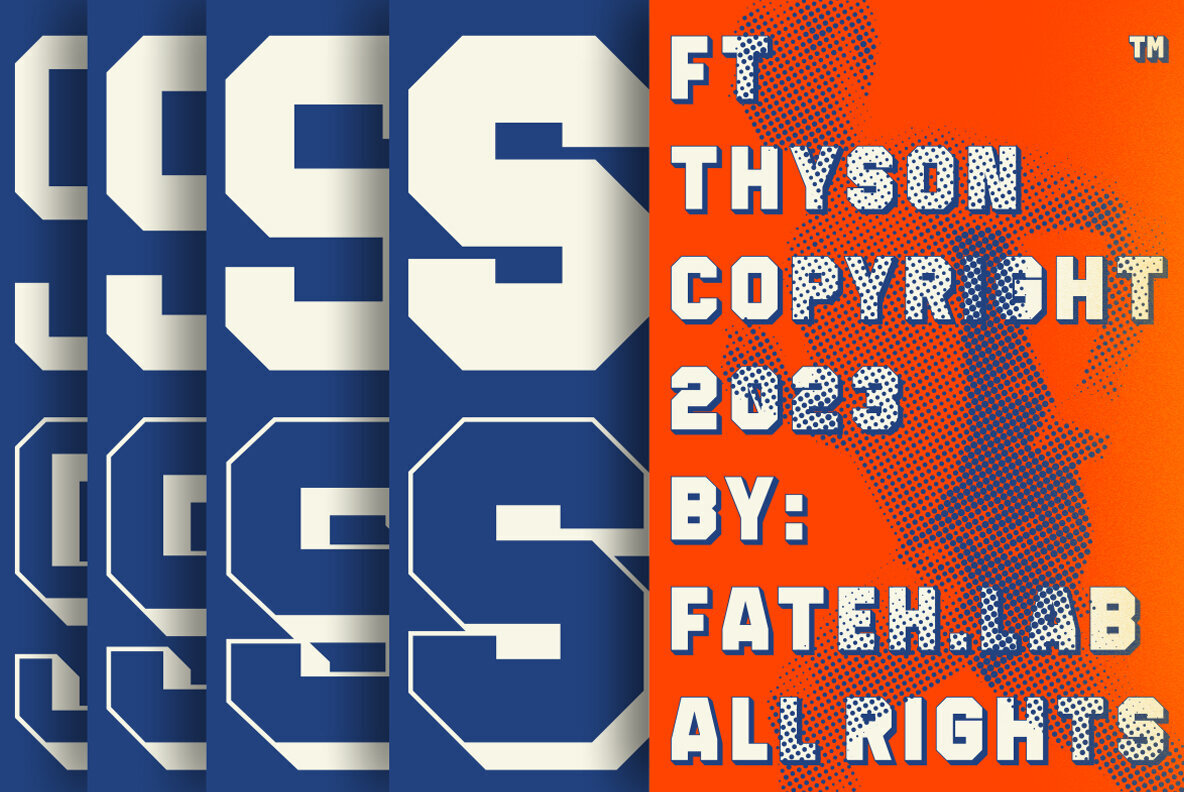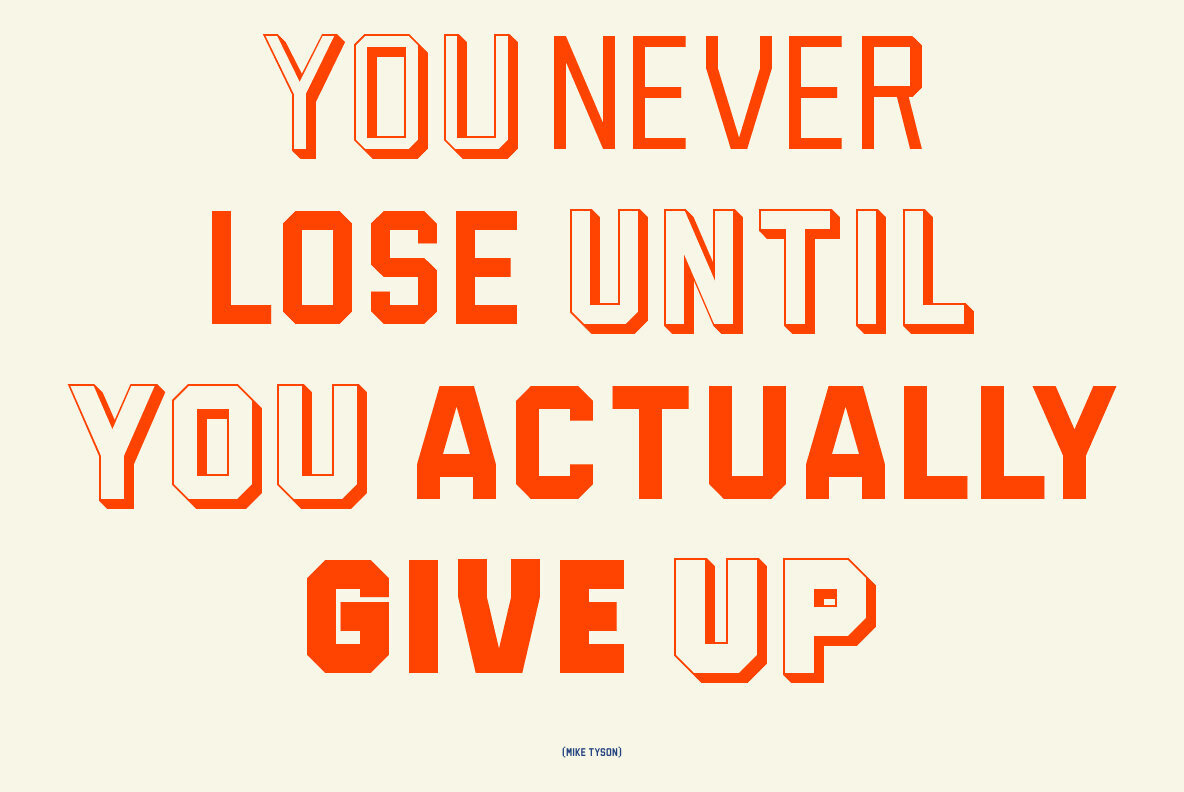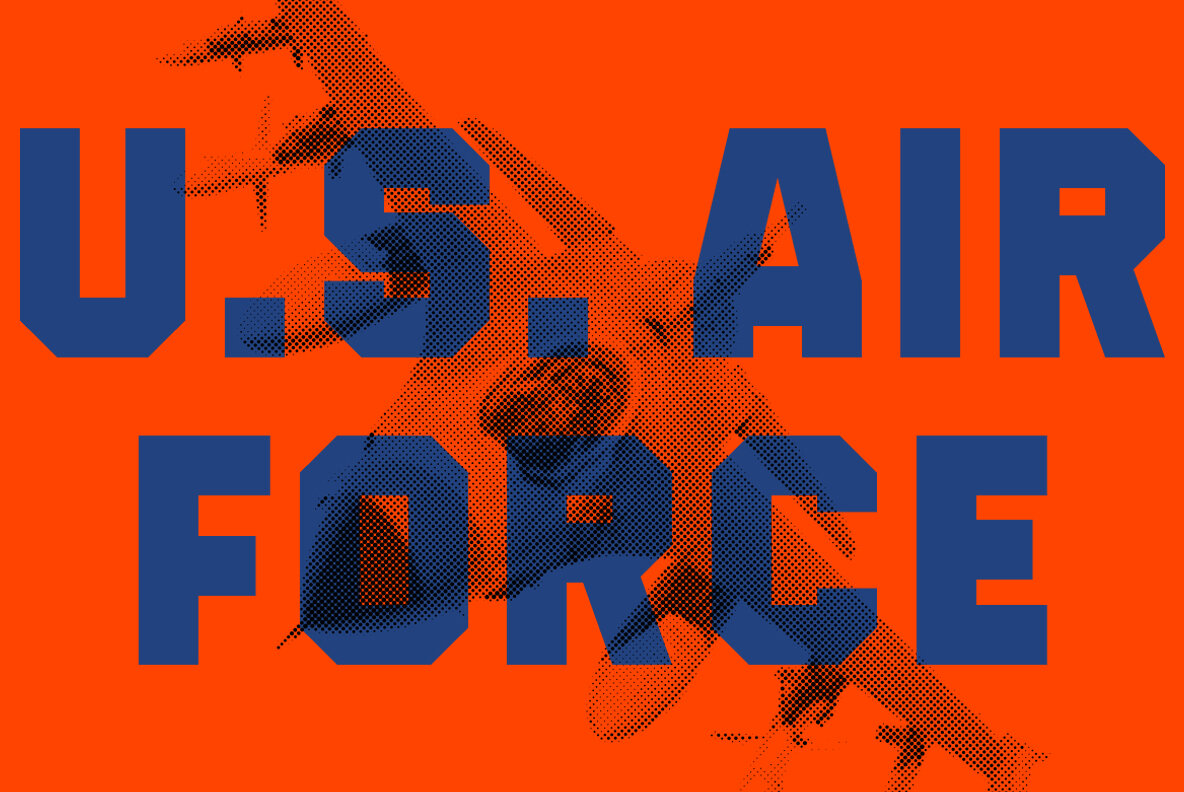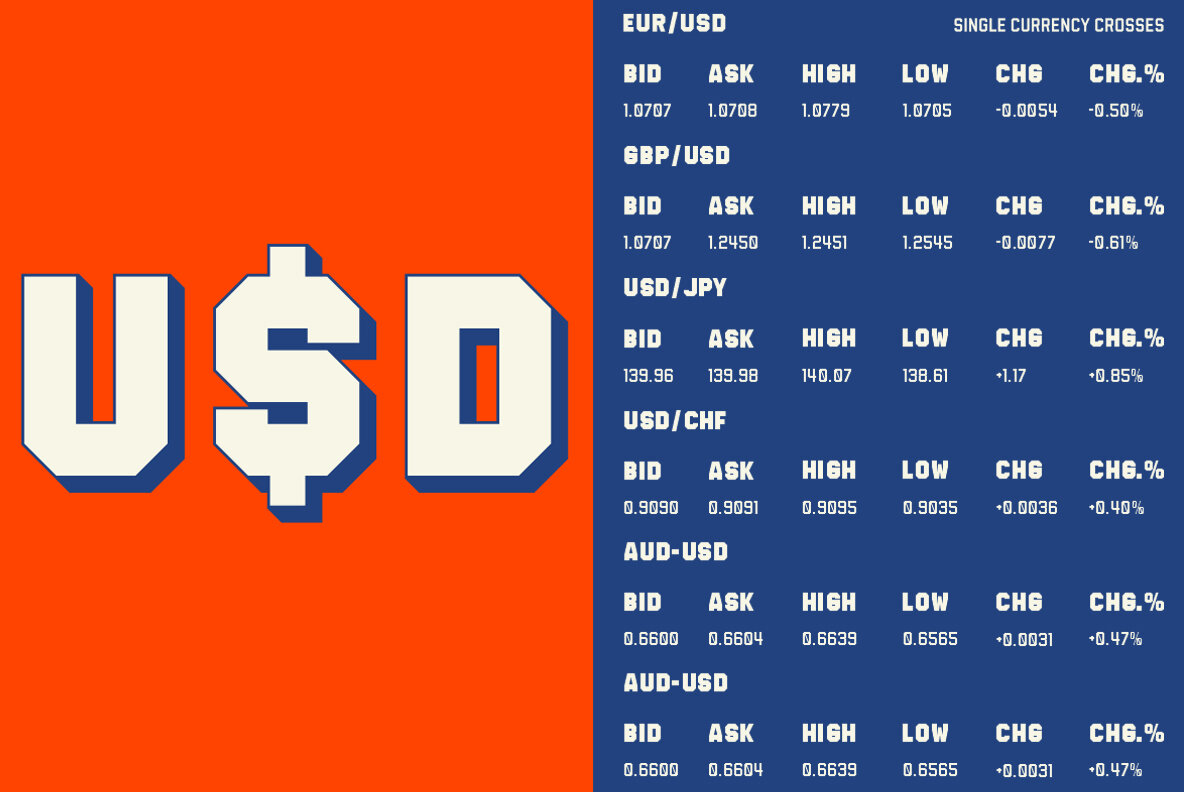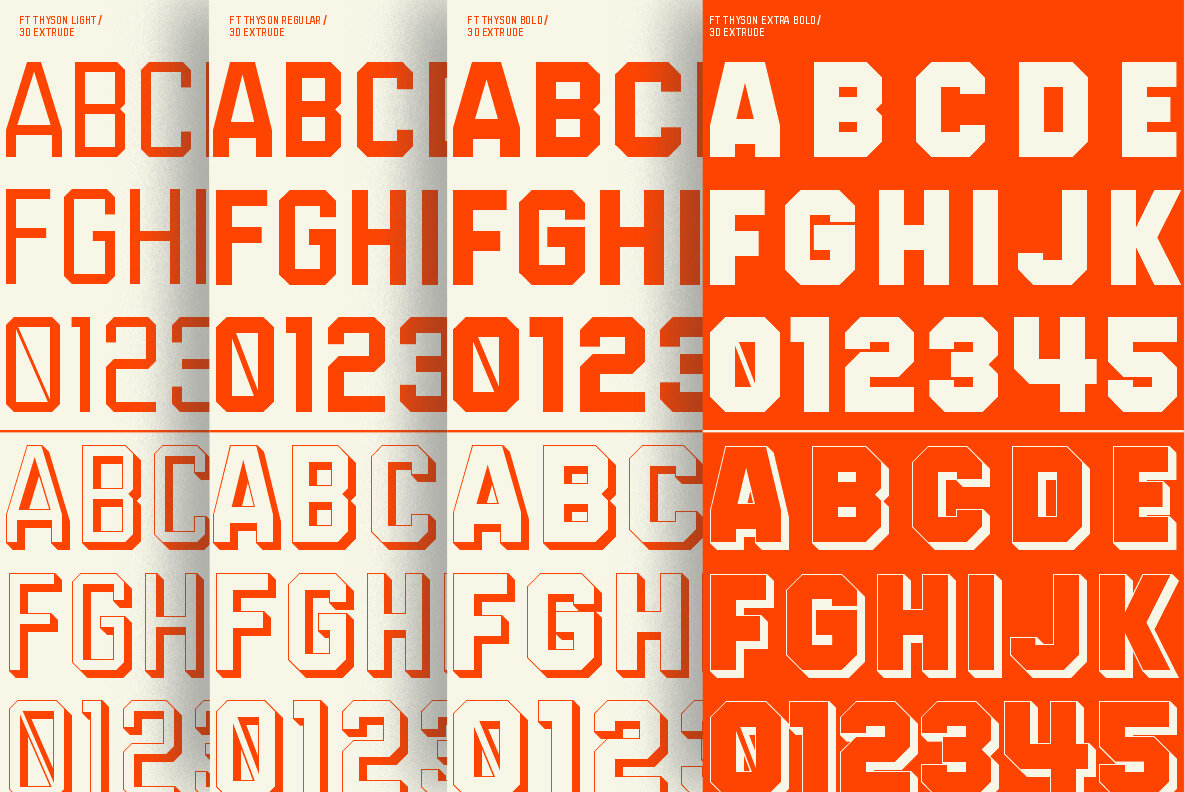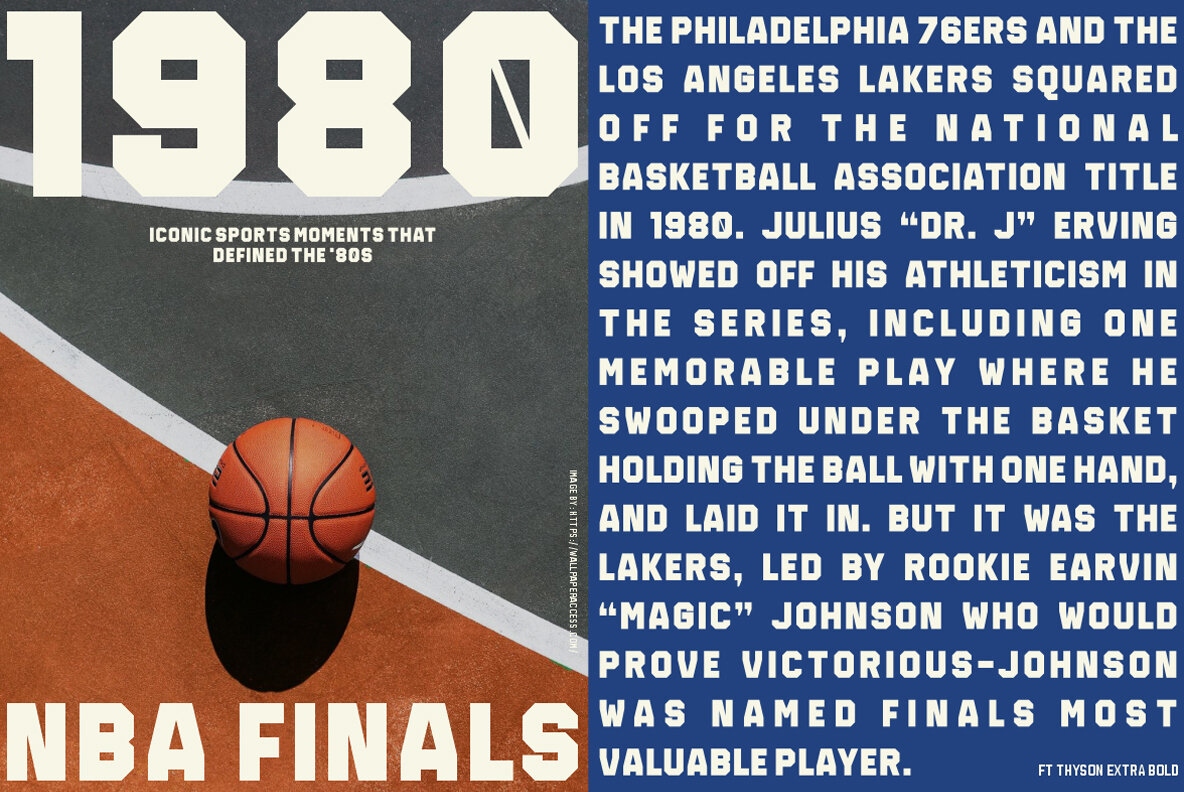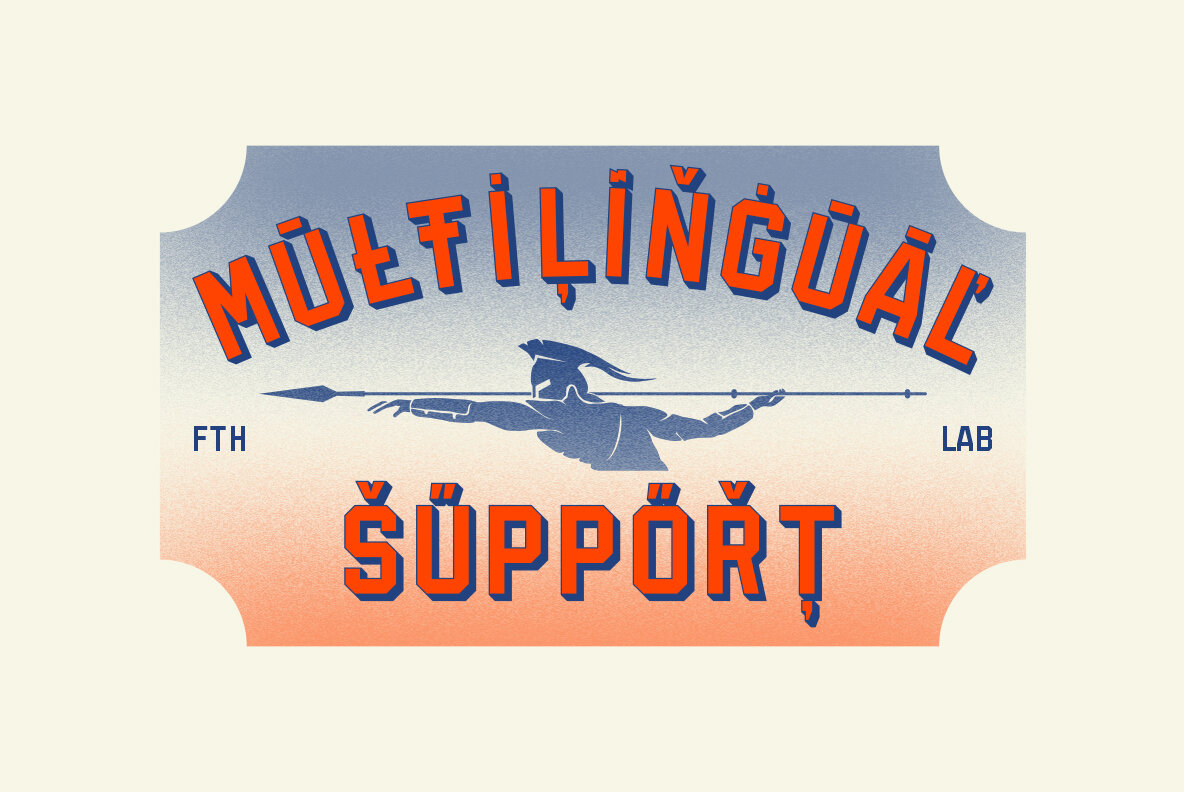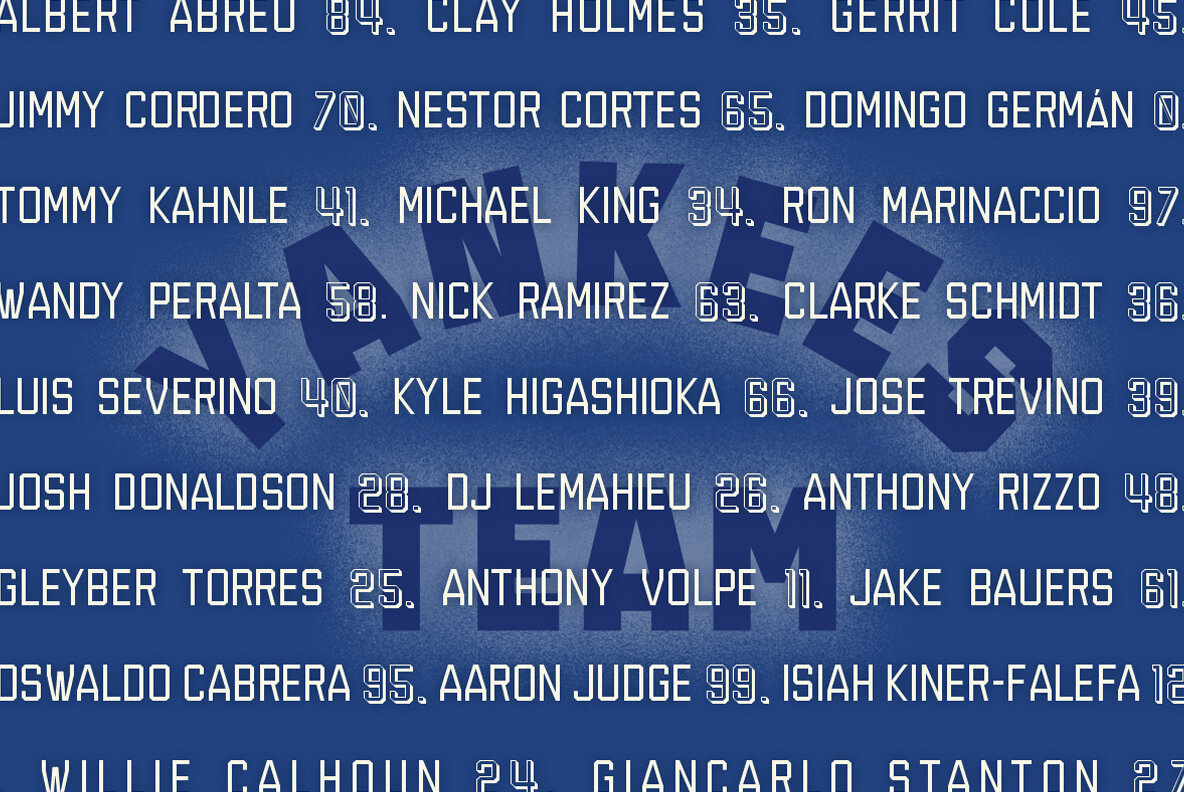
Ft Thyson Font
FT Thyson is a powerful and elegant display typeface. can be used to present your ideas in sports/fitness or editorials, Its weight is superior in posters, social media, headlines, titles, large format print - and wherever you want to be noticed.